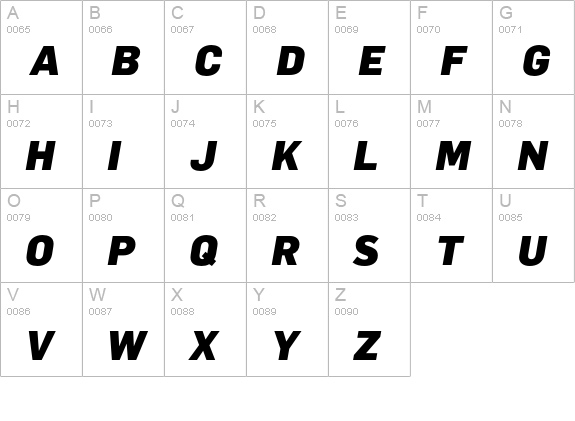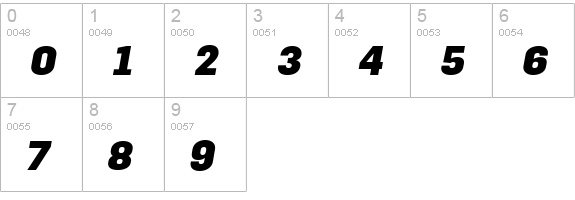
FlamaBlack Italic Font Details
FlamaBlack Italic is a distinctive, italic variant in the FlamaBlack typeface family \xE2\x80\x94 well suited to design and typography projects.
FlamaBlack Italic is a striking and elegant font that exudes sophistication and modernity. With its sleek lines and stylish curves, this typeface is perfect for adding a touch of class to any design project. The italicized version of FlamaBlack provides a dynamic and contemporary feel, making it ideal for creating eye-catching headlines or adding emphasis to important text. What sets FlamaBlack Italic apart is not only its impeccable design but also the fact that it is available for free. That's right, this high-quality font can be downloaded at no cost from FontsMarket.com. Whether you're a designer looking to elevate your creations or a business owner seeking a polished look for your brand, FlamaBlack Italic is the perfect choice. Download it today and see for yourself the impact this font can make on your designs.